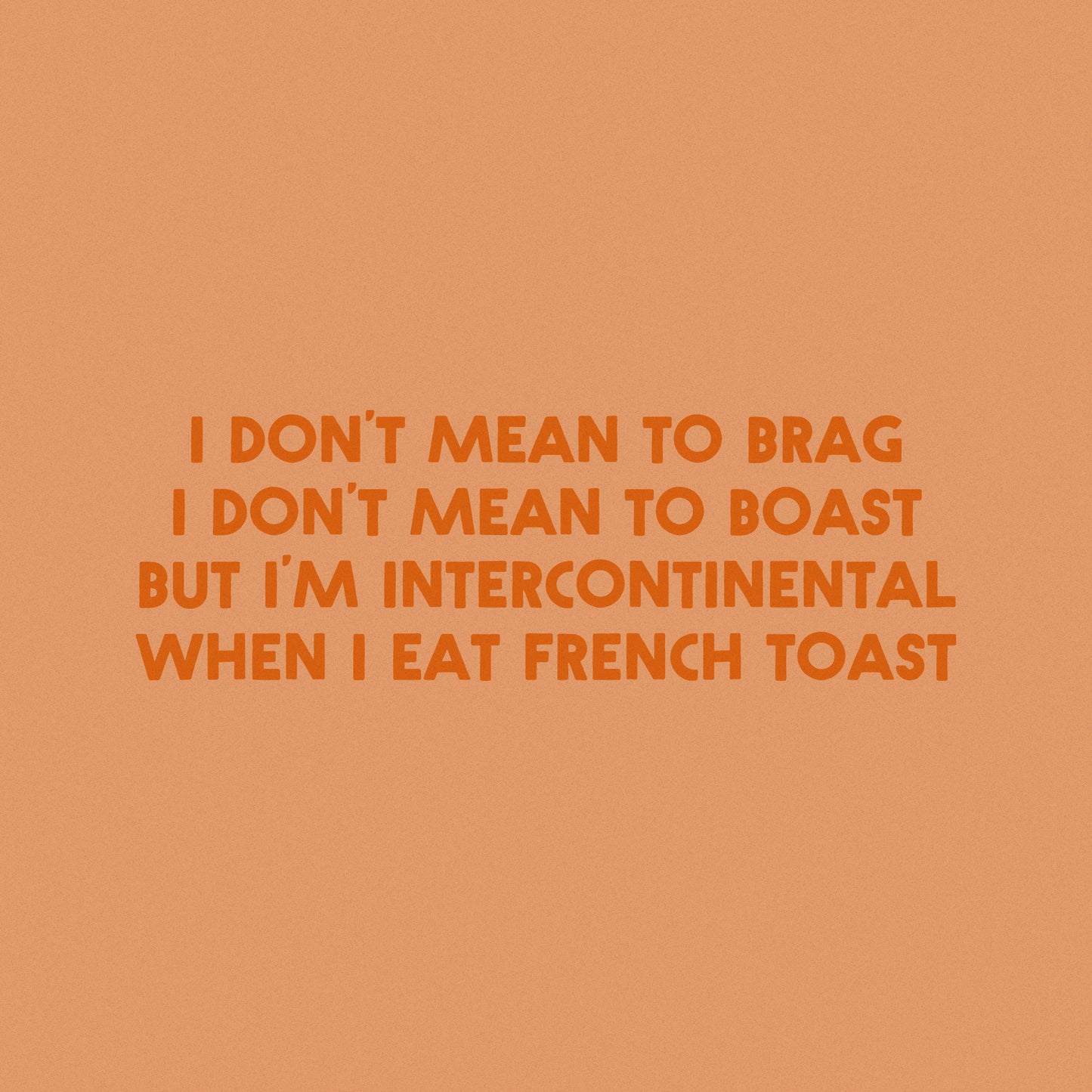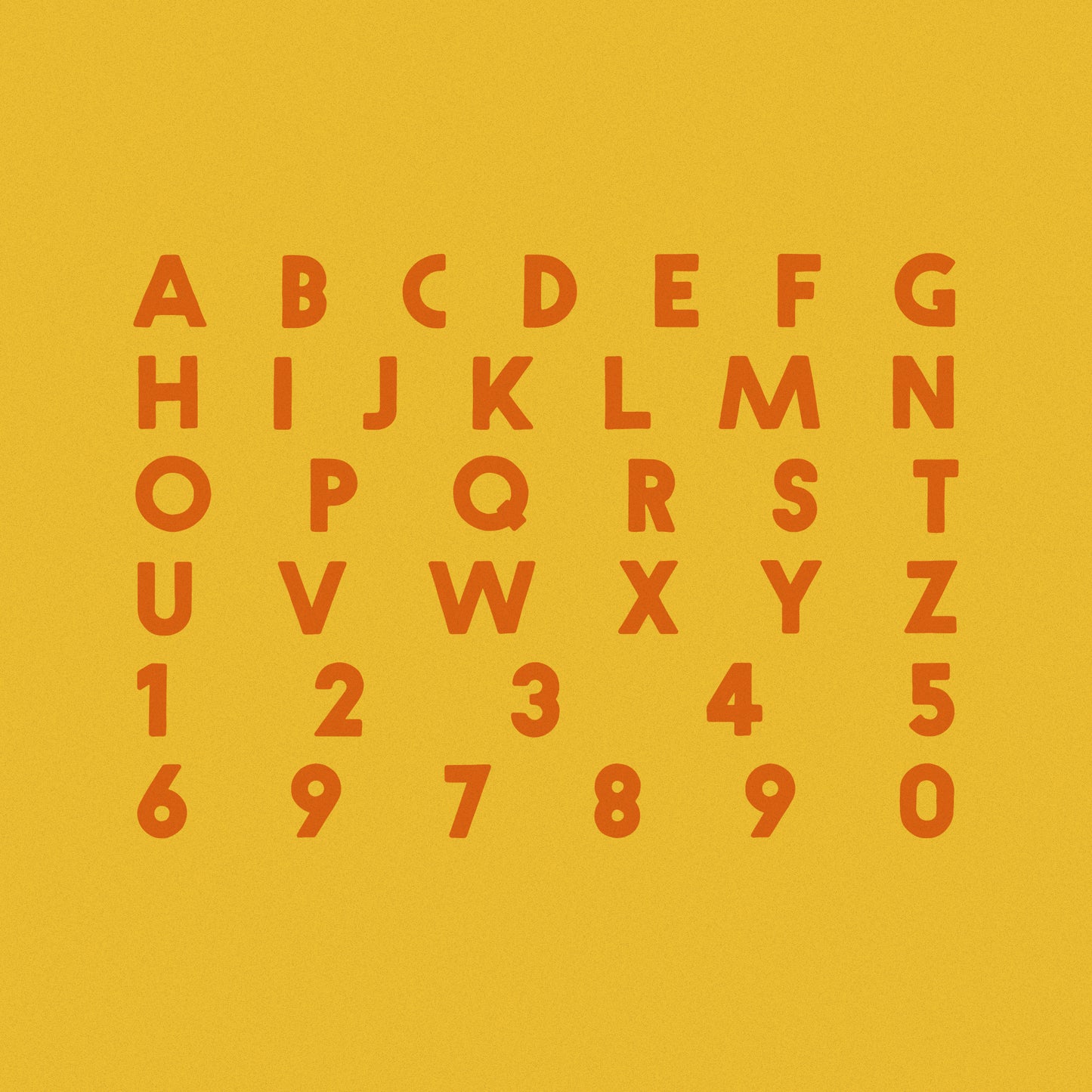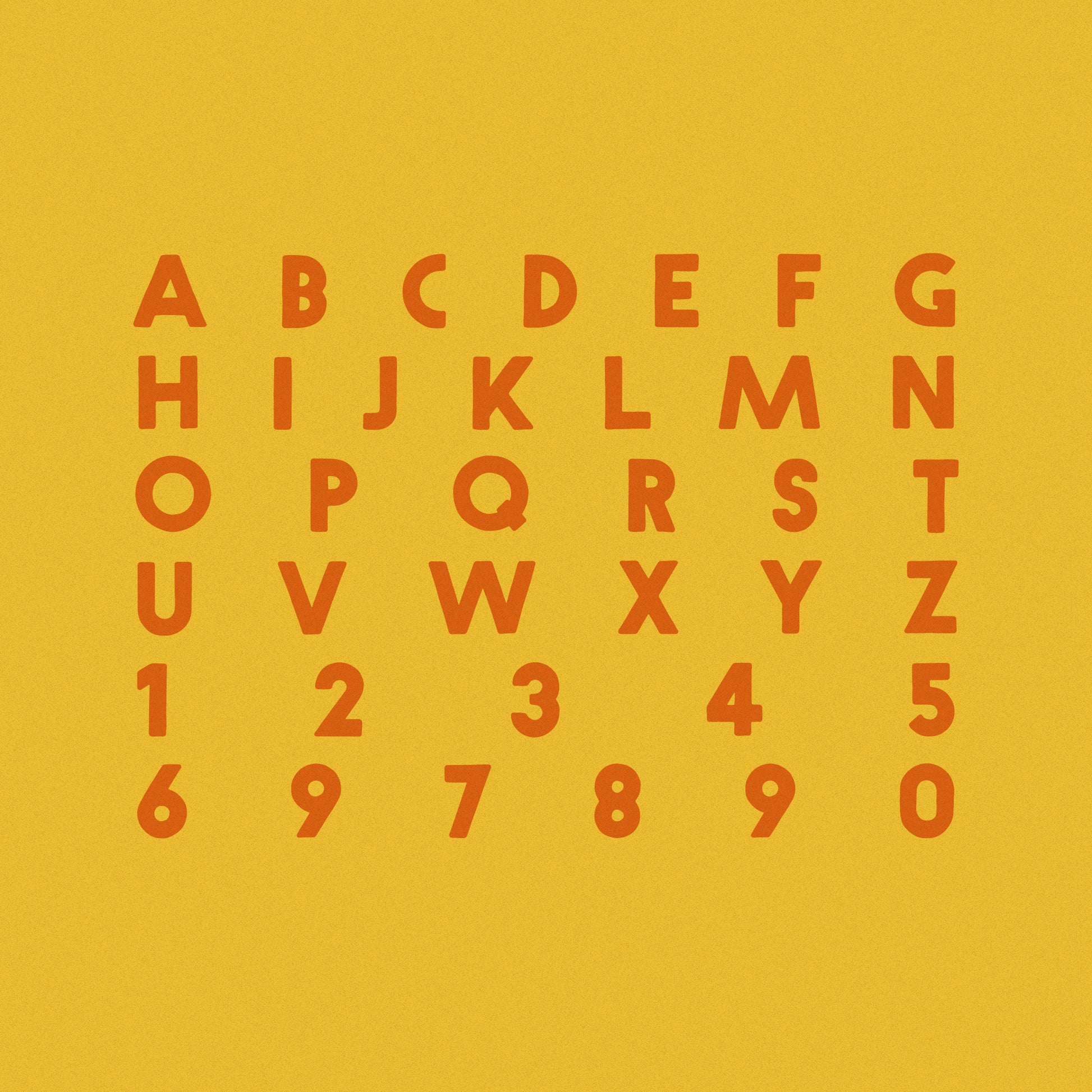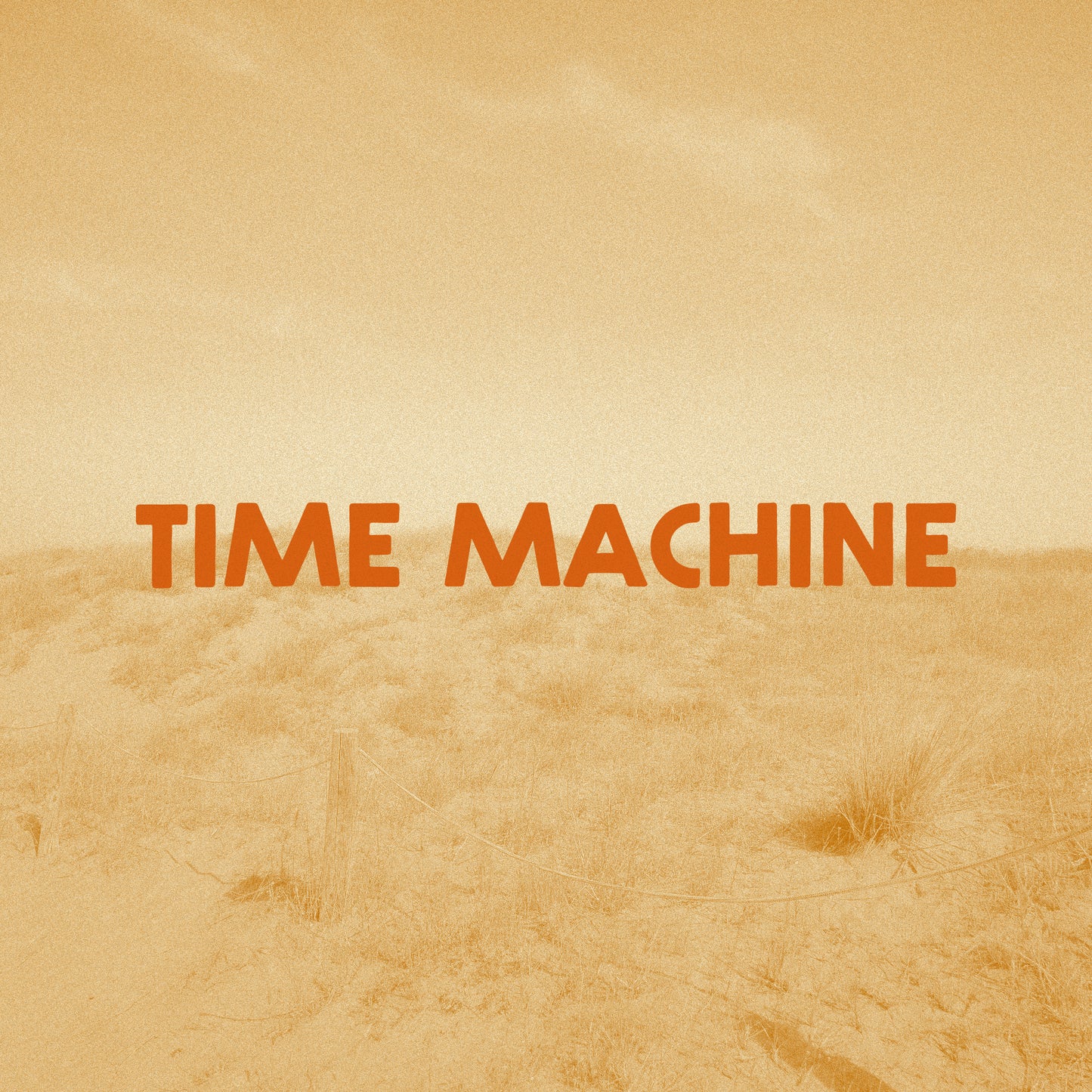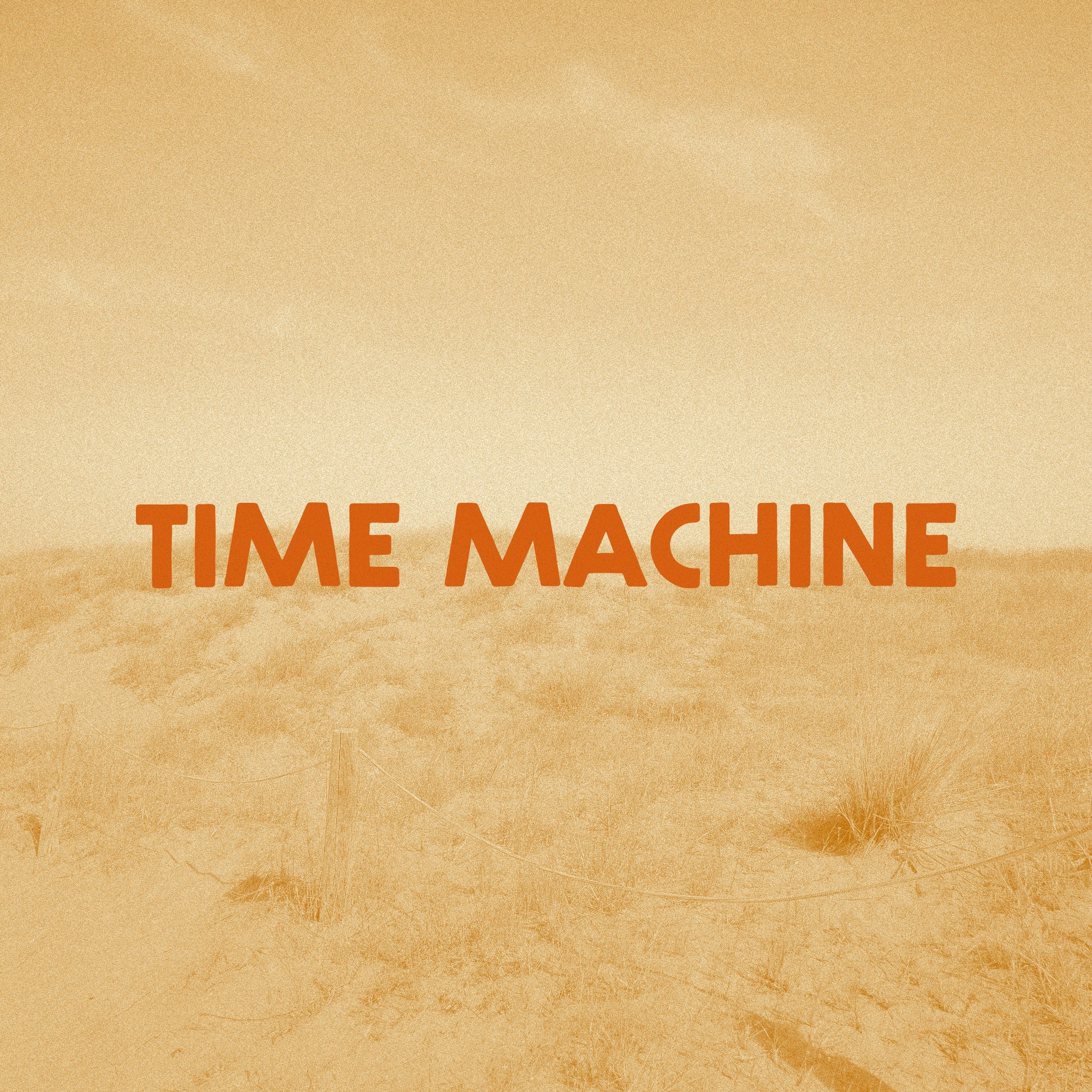
Time Machine Font
Time Machine is a hand drawn display font, modeled in part after the vintage type specimen "Prisma," originally created by Rudolph Koch in 1930. With not-so-subtle nods to Wes Anderson films and a variety of 1950s-60's signage typography, Time Machine seeks to revisit a timeless style and works well for a variety of visual applications.